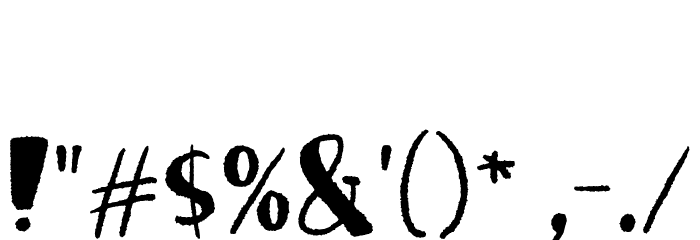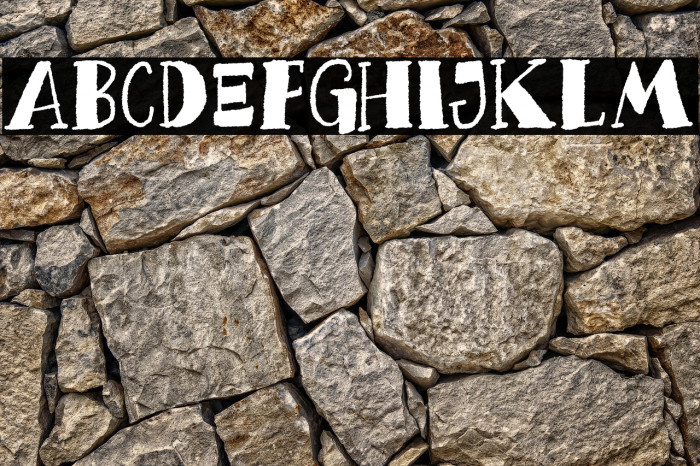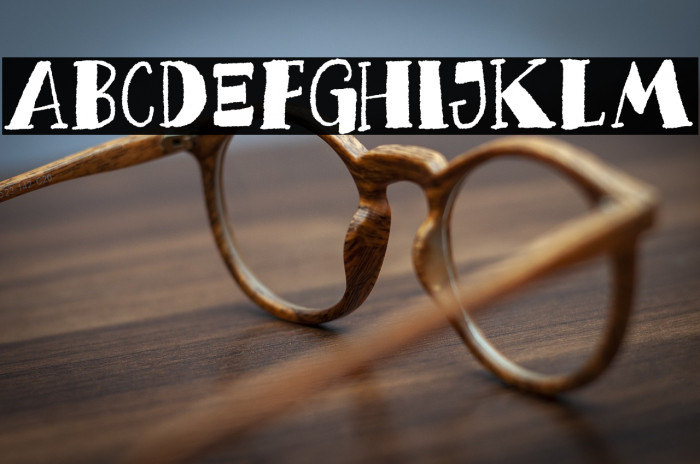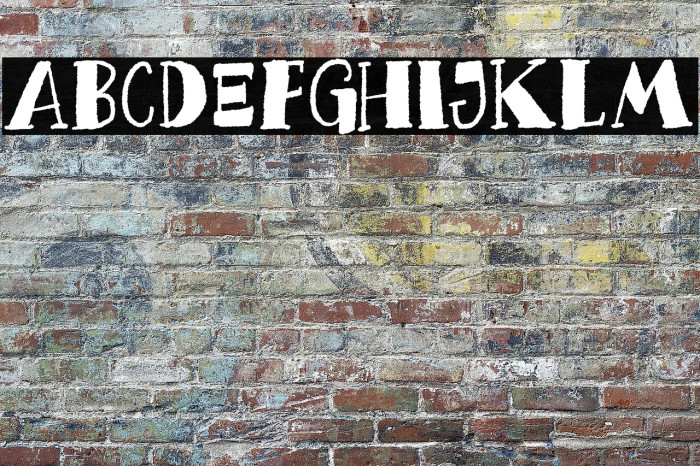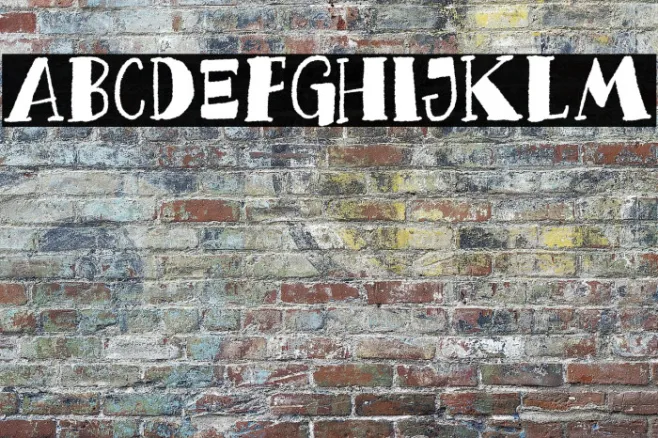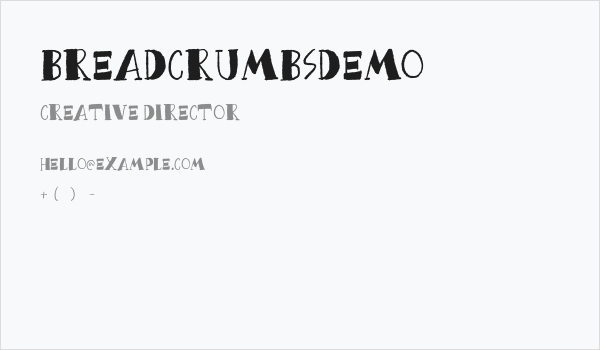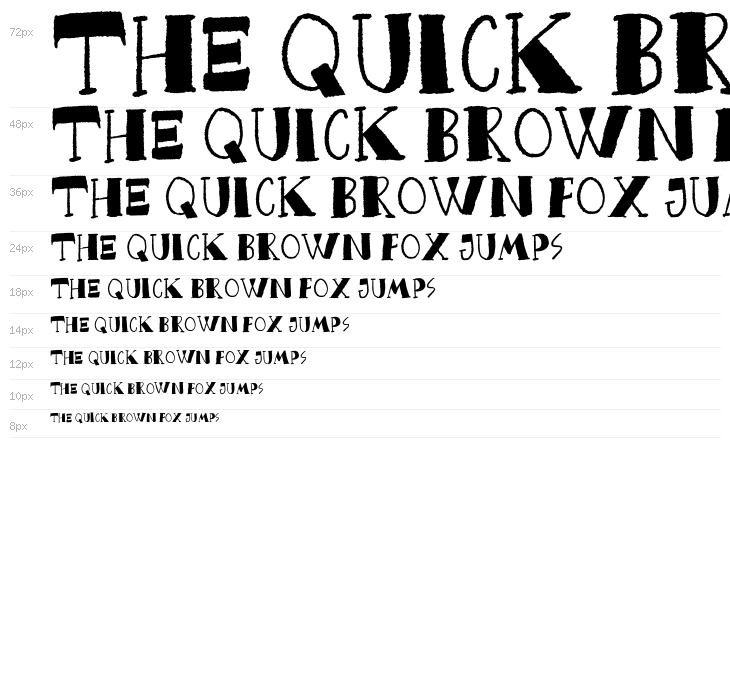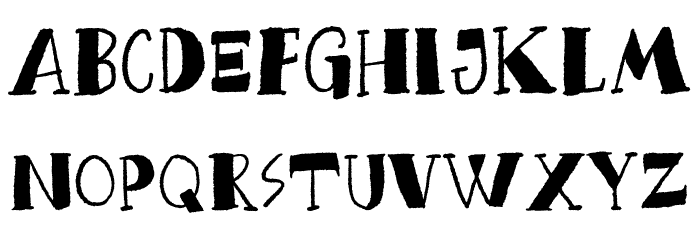
BreadCrumbsDEMO Font
BreadCrumbsDEMO Description
This font exhibits a bold and expressive style, characterized by its irregular, hand-drawn appearance. The uppercase letters are robust and slightly uneven, giving a dynamic and energetic feel. The lowercase letters maintain the same playful and artistic quality, with varying stroke thickness that adds to its handcrafted charm. The numbers and special characters follow suit, offering a cohesive look across all glyphs. This font's unique style is perfect for projects that require a personal touch or a creative flair.
| Use Case | Logos, Headlines, Artistic designs |
| Proposed Projects | Ideal for creative projects such as posters, album covers, artistic branding, and any design that benefits from a handcrafted aesthetic. |